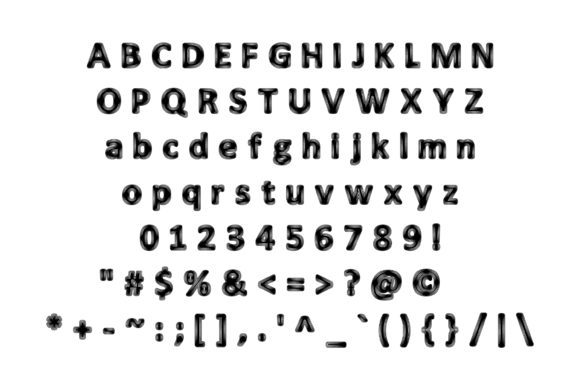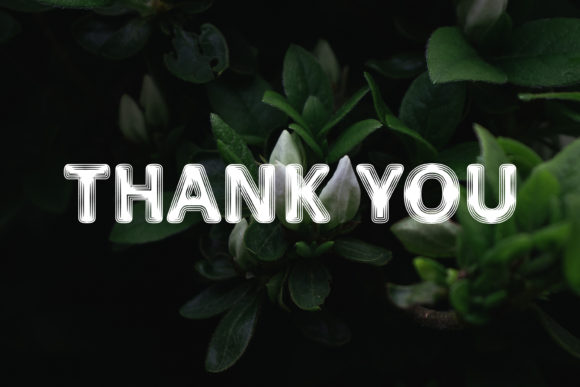
Unlocking Your Creative Potential with Boldhisa Font
Do you remember the moment when a font choice sparked an entire design concept? For many creatives, that ‘aha’ moment is what drives them to push boundaries and create something truly remarkable. For you, it might be the sleek lines of Boldhisa Font that set your imagination ablaze.
Boldhisa Font is a display font designed to inspire your works and make a lasting impression. Its sharp edges and modern aesthetic are perfect for designers looking to add a touch of sophistication to their projects. Whether you’re working on a logo, a poster, or a digital interface, Boldhisa Font is the perfect companion to help you bring your ideas to life.
As a valuable addition to any designer’s toolkit, Boldhisa Font offers endless possibilities for creative expression. Its versatility and modern feel make it an ideal choice for designers looking to stay ahead of the curve.
Boldhisa Font Key Features
- Font Family: Boldhisa is a sans-serif font family designed for digital use.
- Character Set: Supports a wide range of languages, including Latin, Cyrillic, and Greek scripts, with over 1000 glyphs.
- Font Size and Resolution: Designed to work well at font sizes ranging from 10 to 72 points, with optimal legibility at 12-24 points, and a resolution of 300 DPI.
- Unique Characteristics: Features a clean, modern design with a subtle boldness, making it suitable for use in digital products, such as mobile apps, websites, and video games.
Review of Boldhisa Font
Overall, I have mixed feelings about the Boldhisa Font. While it has some great features, it also has some notable limitations.
- ✨ Unique and bold design: The font has a distinctive look that sets it apart from more common fonts. It’s perfect for anyone looking to add some flair to their text.
- ✨ Wide range of languages: Boldhisa Font supports a wide range of languages, making it a great choice for international projects.
- ✨ Good for headings: The font’s bold design makes it ideal for headings and titles, adding a touch of sophistication to any design.
- ⚠️ Limited legibility: While the font looks great, its bold design can make it difficult to read in smaller sizes or at a distance.
- ⚠️ Not ideal for body text: The font’s unique design makes it less suitable for large blocks of text, as it can be tiring to read.
- ⚠️ Limited font sizes: The font’s bold design can become overwhelming when used in larger sizes, making it less versatile than other fonts.
Overall, I would recommend the Boldhisa Font for specific use cases where its unique design is needed, such as headings or titles. However, it may not be the best choice for general body text or larger font sizes.
Boldhisa Font is ideal for creating bold and eye-catching headings, titles, and logos. Use it to add a touch of sophistication and elegance to your designs. Some common use cases include:
- Headings and titles in presentations and reports
Alternatives to Boldhisa Font
Montserrat is a sans-serif font designed by Julieta Ulanovsky. It is a modern and clean font perfect for digital interfaces, such as websites and mobile apps. Montserrat is more geometric and has a slightly more formal tone compared to Boldhisa Font, which is more playful and casual.
Inter is a sans-serif font designed by Rasmus Andersson. It is a highly legible font with a clean and neutral design. Inter is more versatile than Boldhisa Font and can be used in a wide range of applications, from body text to headings. Inter is also more minimalist and has a more subtle feel compared to Boldhisa Font.